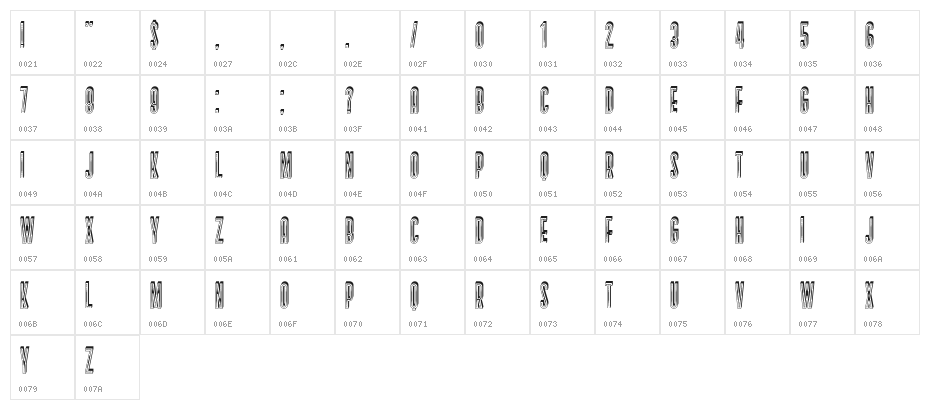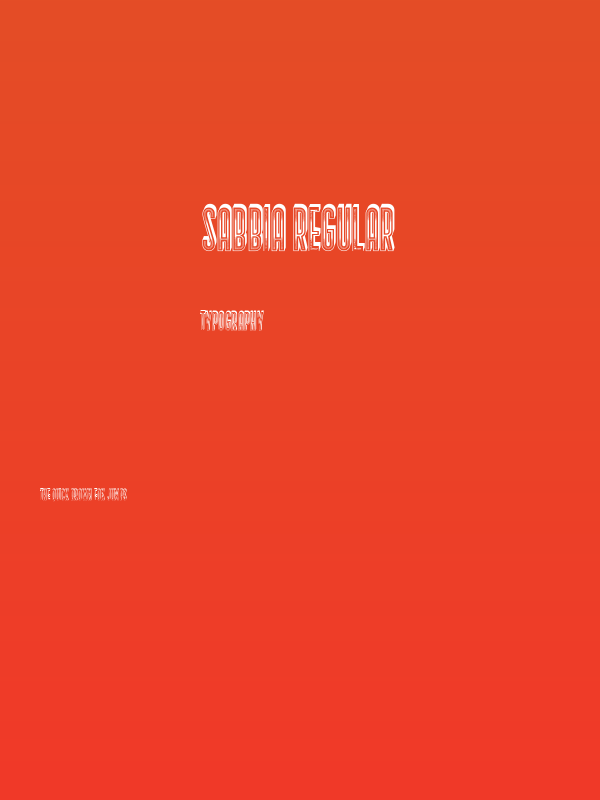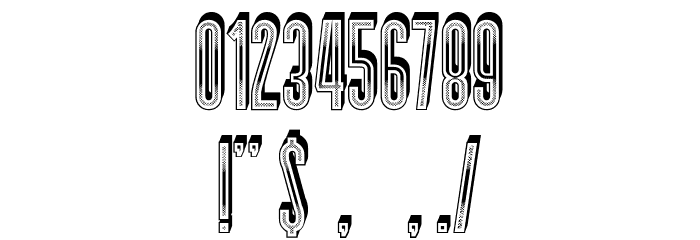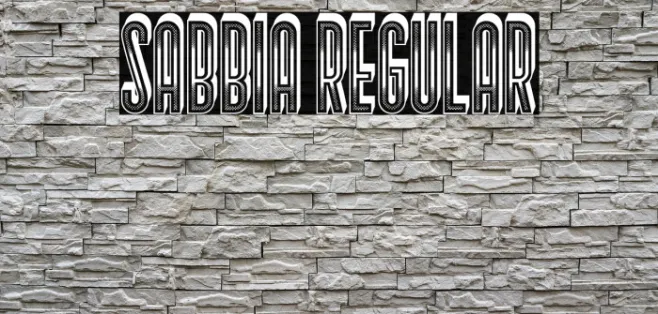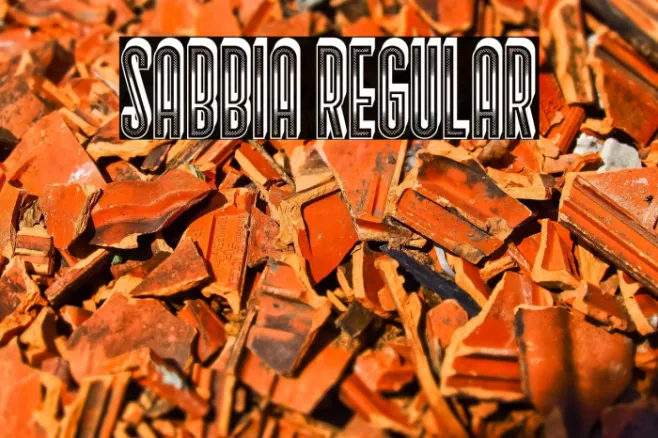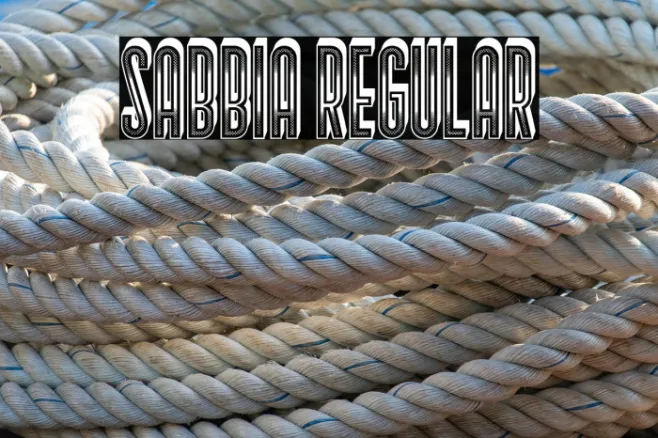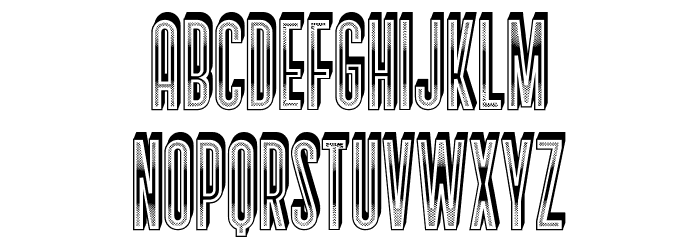
Sabbia Regular Font
Sabbia Regular Description
This font features a bold, decorative style with a unique striped pattern within each character, giving it a dynamic and eye-catching appearance. The uppercase letters are tall and narrow, with a consistent width that adds to the font's structured look. The numbers and special characters maintain the same design elements, ensuring a cohesive visual experience. The font's intricate detailing makes it ideal for projects that require a strong visual impact, such as posters, headlines, and branding materials. Its distinct style is both modern and playful, making it suitable for creative and artistic applications.
| Proposed Projects | Ideal for posters, headlines, branding materials, and creative projects requiring a strong visual impact. |